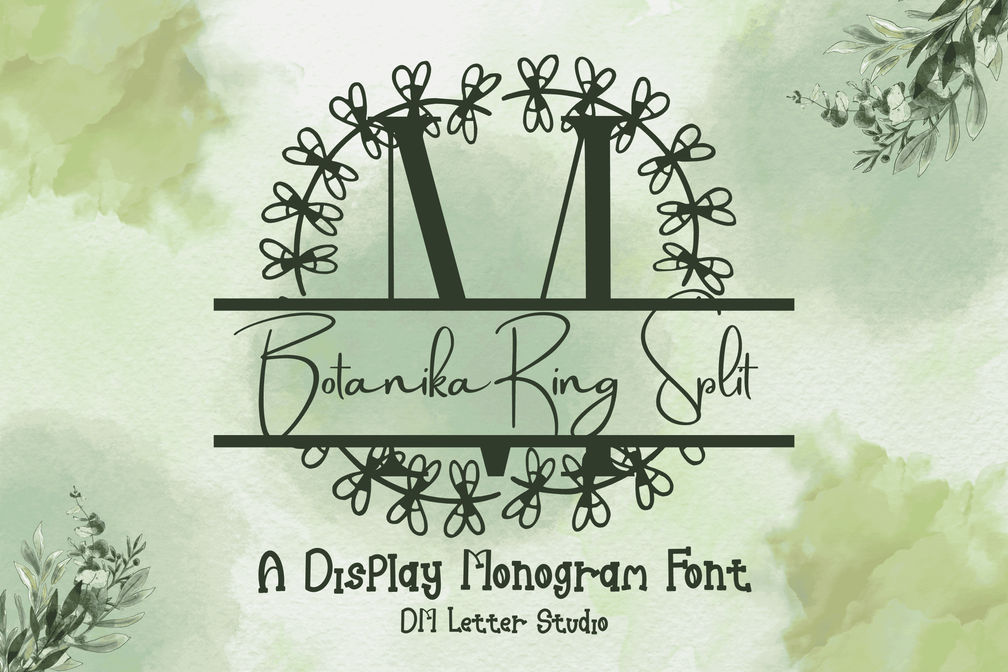
Botanika Ring Split Monogram
Botanika Ring Split Monogram – Nature-Inspired Split Monogram Font
Botanika Ring Split Monogram is a stylish and modern split-letter font framed by a delicate botanical wreath. Designed to blend elegance and personalization, each uppercase letter features a clear split space—perfect for inserting names, dates, or short messages. Ideal for wedding decor, branding, crafting, or personalized gifts, this font offers natural charm with functional design.
• Split Monogram Style: Each letter includes a space for customization, great for names and titles.
• Botanical Wreath Frame: Elegant floral ring adds a graceful, nature-inspired touch.
• Perfect for Personalized Projects: Use for wedding signage, gift tags, logos, Cricut crafts, and home decor.
• Complete Character Set: Includes A–Z uppercase, numerals, punctuation, and multilingual accents.